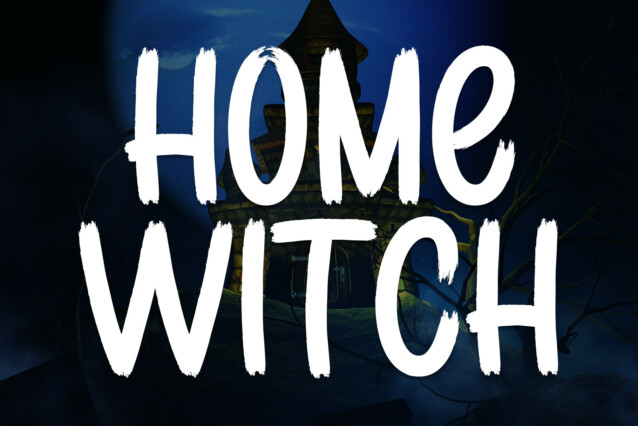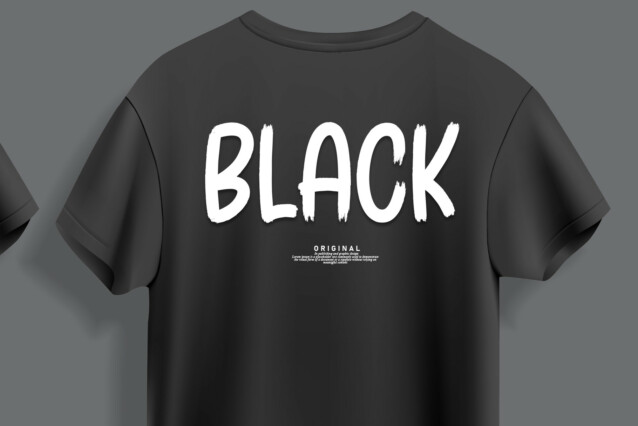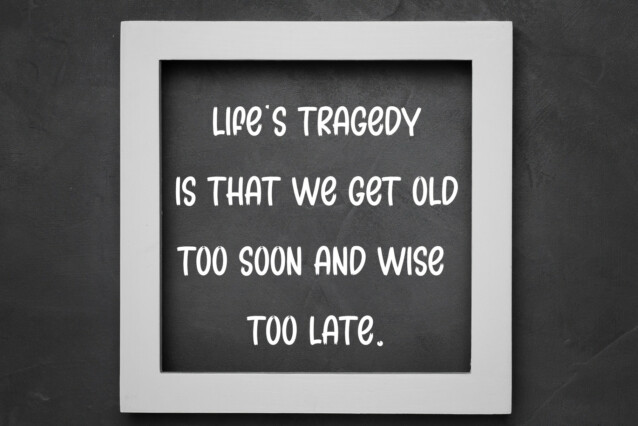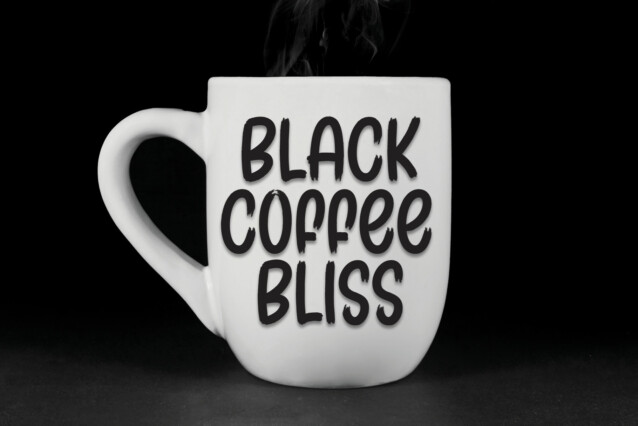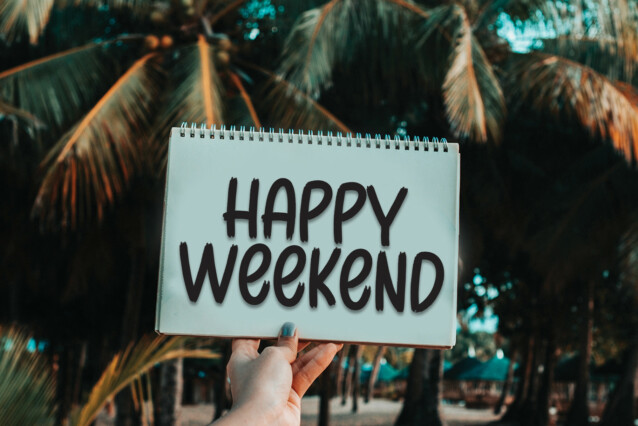
Home Witch Brush Font
Home Witch Brush Font is a sweet and friendly handwritten display font. Cute and fun, this font is ideal for writing wedding invitations, cards, or any other design that might need a playful touch!